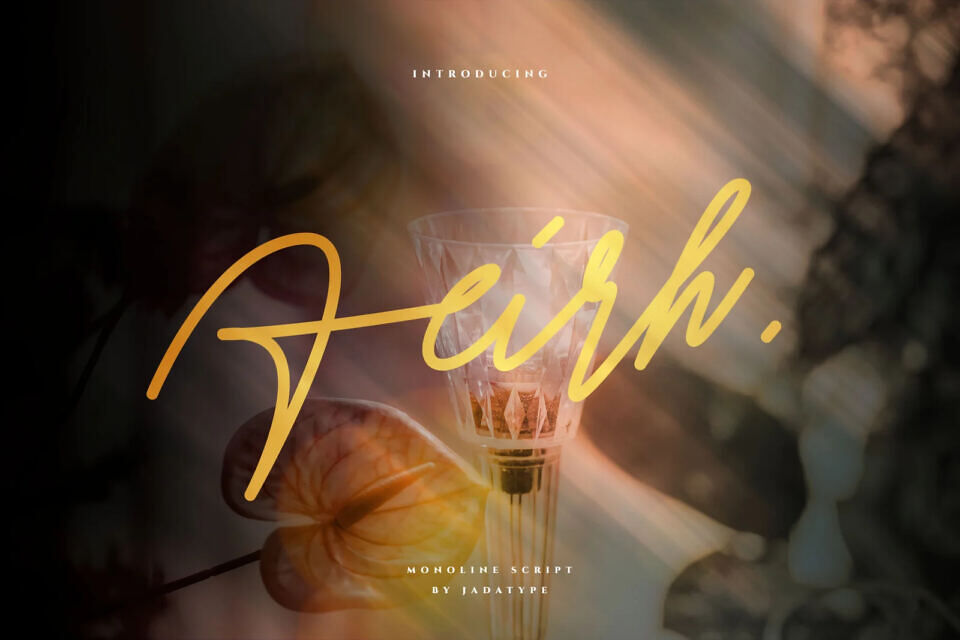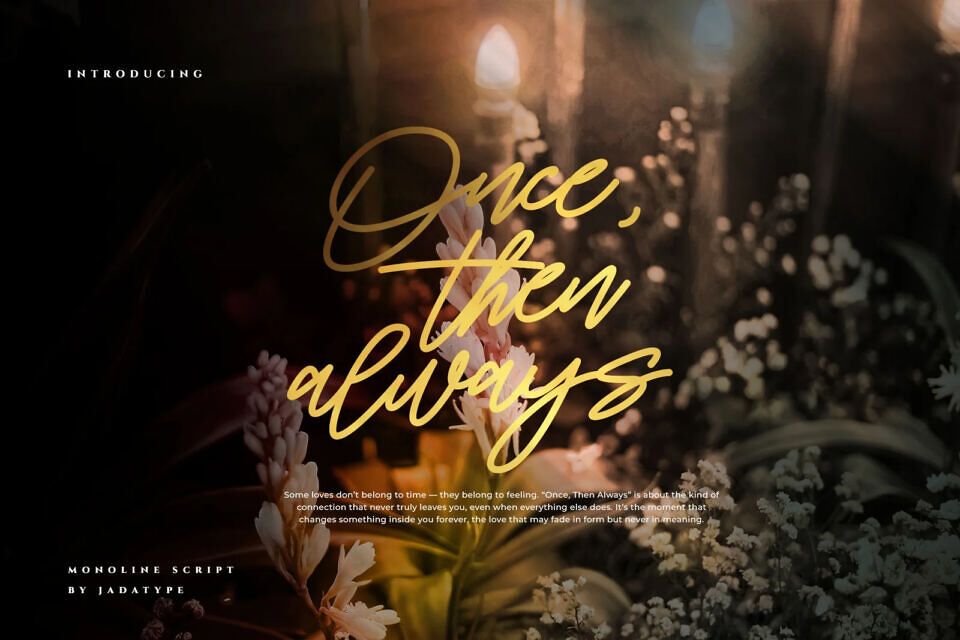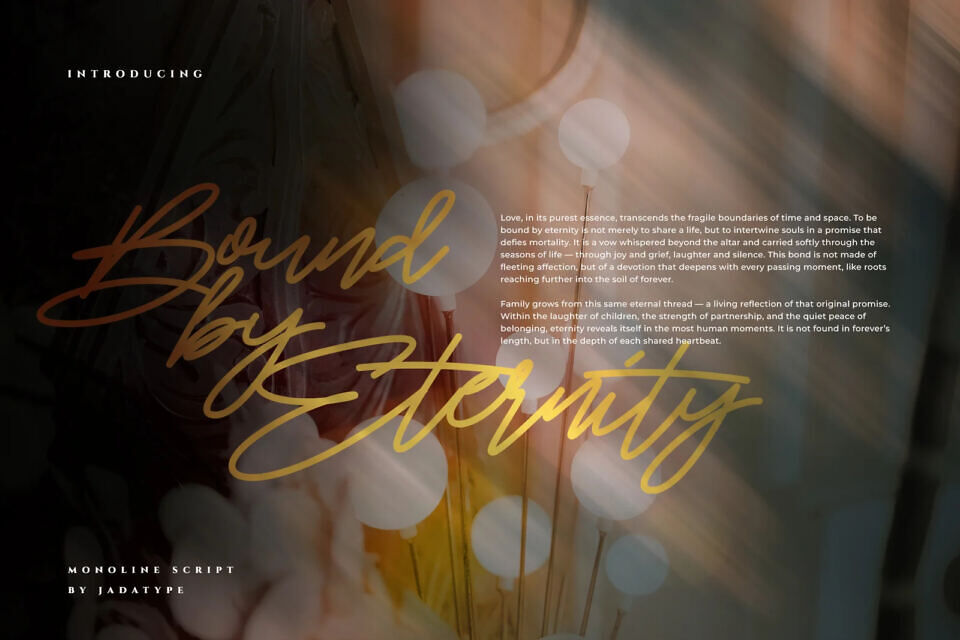
Feirh Monoline Script is a dance of elegance and emotion — a modern handwritten typeface that flows effortlessly between sophistication and sincerity.
Its smooth monoline strokes whisper warmth, making every word feel personal and timeless — perfect for weddings, branding, or poetic design projects.